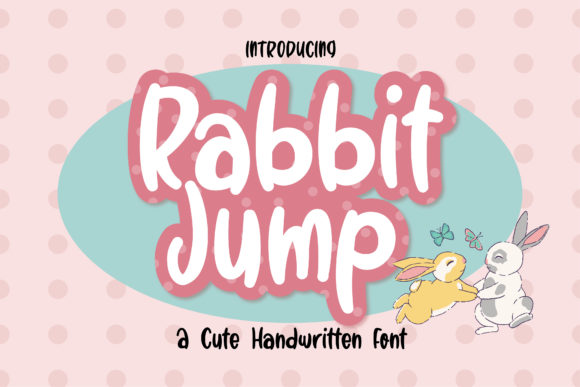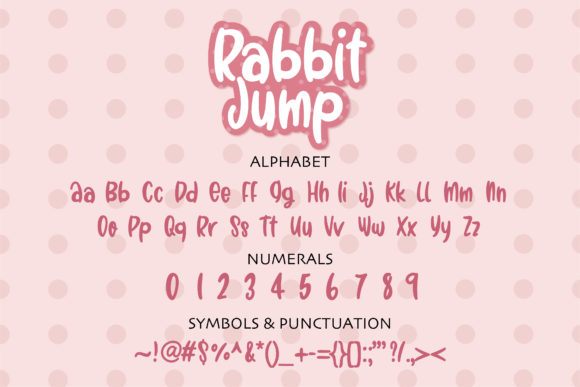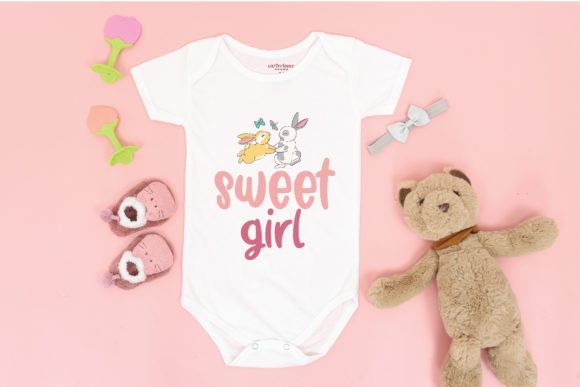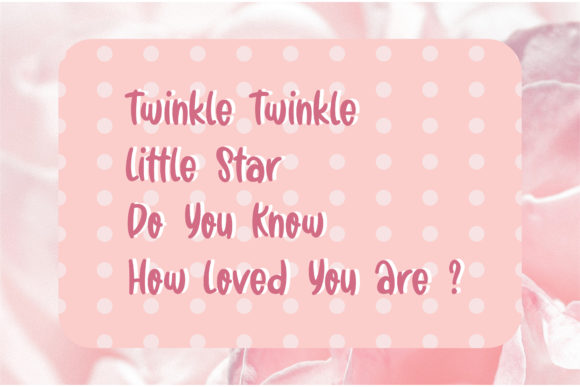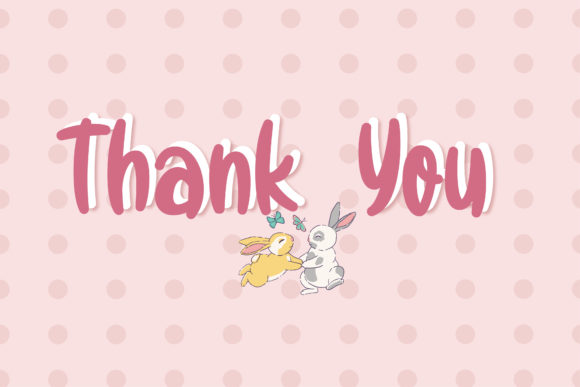
Rabbit Jump Font
About Rabbit Jump Font
“Rabbit Jump” is a delightful and versatile handwritten font that combines cuteness with flexibility. Its natural and unique style makes it an excellent fit for a wide range of design projects, offering endless variations for creative exploration. Have fun experimenting with this beautiful font, as it looks stunning on wedding invitations, thank you cards, quotes, greeting cards, logos, business cards, and any other design that benefits from a charming handwritten touch.
The font’s inherent cuteness and flexibility make it a standout choice for projects that require a playful and personalized aesthetic. The handwritten touch of “Rabbit Jump” adds a warm and inviting feel, making it particularly well-suited for designs that aim to convey a sense of joy and friendliness.
For wedding invitations, “Rabbit Jump” brings a whimsical and charming quality that enhances the overall romantic atmosphere. The font’s natural strokes and unique style contribute to a distinctive look, making the invitations more memorable and special.
In thank you cards and greeting cards, the font’s handwritten charm creates a personal connection with the recipient. Whether used for expressing gratitude or sending warm wishes, “Rabbit Jump” adds a heartfelt touch to your messages.
The font’s adaptability extends to quotes and inspirational messages, where its playful yet elegant style elevates the visual impact of the text. “Rabbit Jump” allows you to convey positivity and creativity through its lively and natural design.
In logo and business card design, “Rabbit Jump” stands out as a unique choice that adds character to your brand identity. The handwritten touch imparts a sense of authenticity, making it suitable for businesses or projects that prioritize a friendly and approachable image.
Overall, “Rabbit Jump” is more than just a font; it’s an invitation to have fun with design and explore its endless variations. Whether you’re working on wedding materials, cards, quotes, logos, or business collateral, this cute and flexible handwritten font is designed to bring a touch of charm and creativity to your projects.